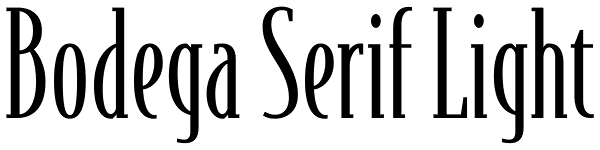
Bodega Serif
Inspired by Font Bureau’s rapid success with the 1990 Bodega Sans, Greg Thompson designed Bodega Serif two years later. It duplicates the same weights and styles as the original in an alternative seriffed design, providing contrasting yet...